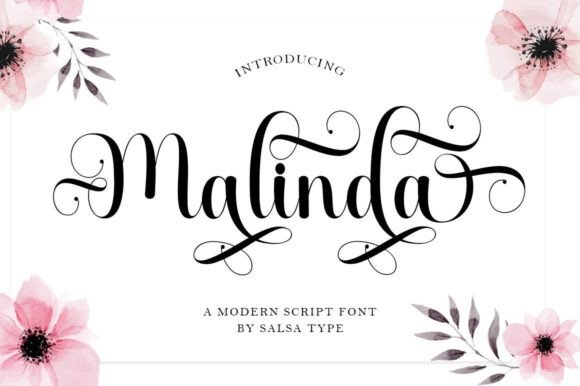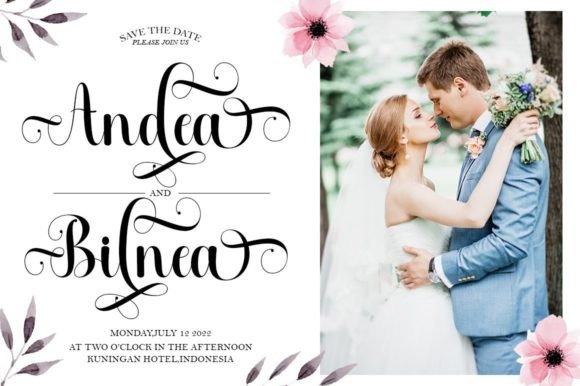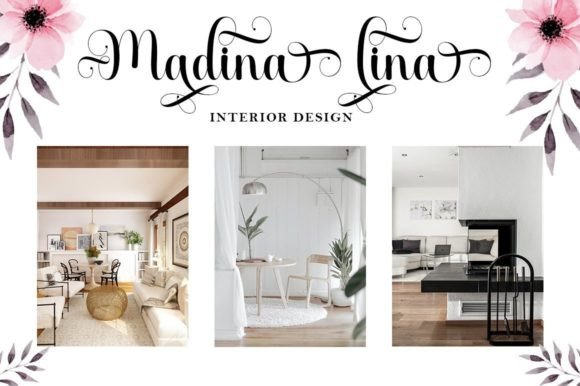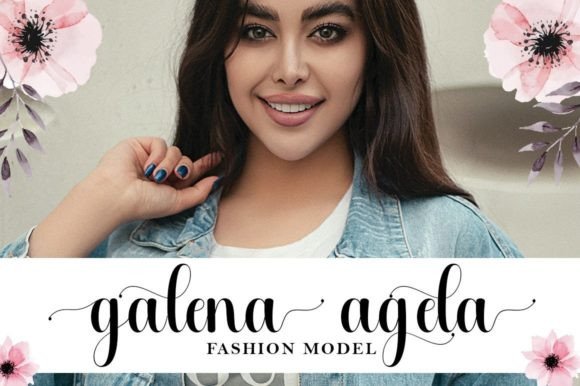
About Malinda Font
Malinda is a charming and exquisite handwritten font that adds a touch of sweetness and beauty to any design project. With characters that gracefully dance along the baseline, Malinda brings a sense of elegance and luxury to your creations. This font is crafted with care, making it a perfect choice for a wide range of applications.
Whether you’re working on invitations, greeting cards, quotes, posters, branding, or any other creative project, Malinda’s unique and delightful style will leave a lasting impression. The handwritten quality of the font adds a personal and authentic touch, making your designs stand out.
Malinda’s versatility makes it suitable for various contexts, allowing you to experiment with different design ideas. Its ability to convey a luxurious and sophisticated vibe makes it particularly well-suited for projects where an elegant touch is desired.
Consider using Malinda for your next project to infuse it with a sense of beauty and refinement. Let this sweet and beautiful handwritten font bring a touch of luxury to your designs, creating an impact that resonates with viewers.